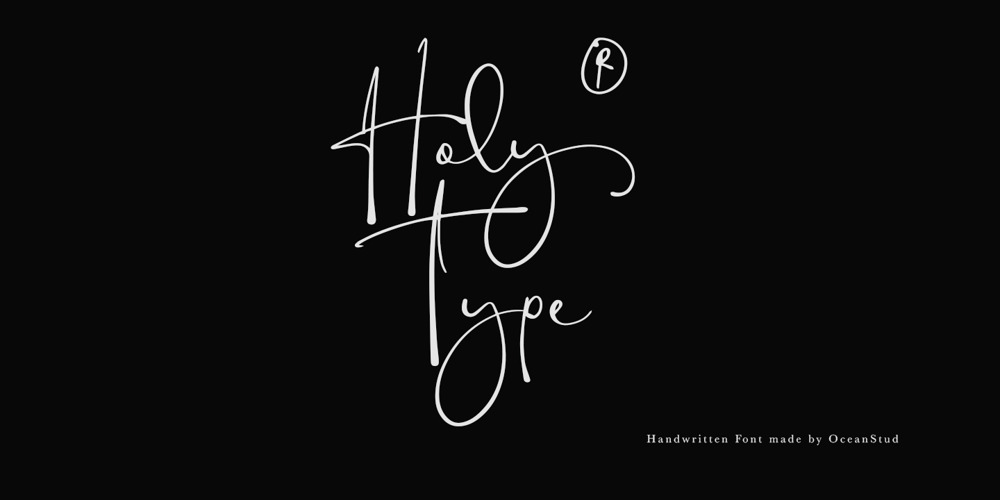
Holy Type
Holy Type font
Holy Type Font Family was designed by Laire Banyu and published by The Ocean Studio. Holy Type contains 1 styles and family package options. HOLY TYPE FONT a handwritten font inspired and dedicated or consecrated to God or a religious typeface , meaningful of type.You can get special characters by access Character Map for Windows user, and Font Book for MAC user. Download tutorial below :How to Access special characters, You can Download the link for Support youhttp://www.mediafire.com/file/o3sml68hxp6h6yd/Access_Spesial_Characters.pdf/fileThis is information and tutorial how to use ligatures in Adobe Illustrator, Adobe Photoshop, Microsoft Word (Windows and Mac). And Enable alternates characters in other apps. Download the guide here :http://www.mediafire.com/file/edm9sjjwx9g1vi2/How_to_Active_Ligature.pdf/fileif you get a trouble on our font kerning :http://www.mediafire.com/file/9e0q5sjzx97e06m/how_to_slove_trouble_kerning.pdf/file